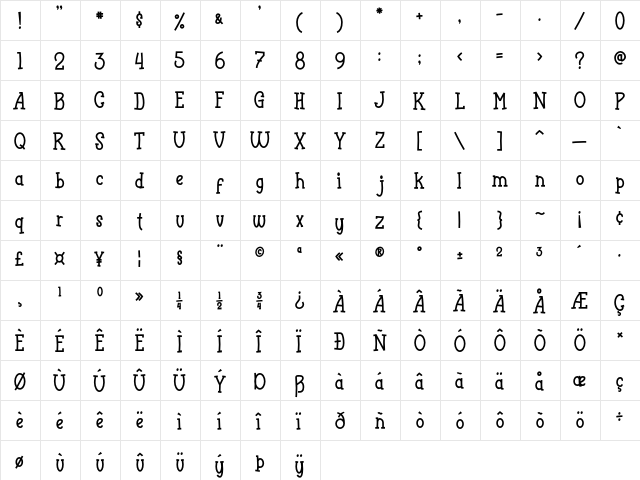
Funyard Regular
Design Context for Funyard Typeface
Funyard trades formality for fun, with bouncy, characterful letterforms that bring warmth and energy to any project.
Font Pairing: Pairs well with a rounded or humanist sans for body copy, maintaining the friendly tone without relying on Funyard to carry extended reading.
Pro Tip: Avoid using Funyard for long passages of text — it works best for headlines, labels, and short calls to action.